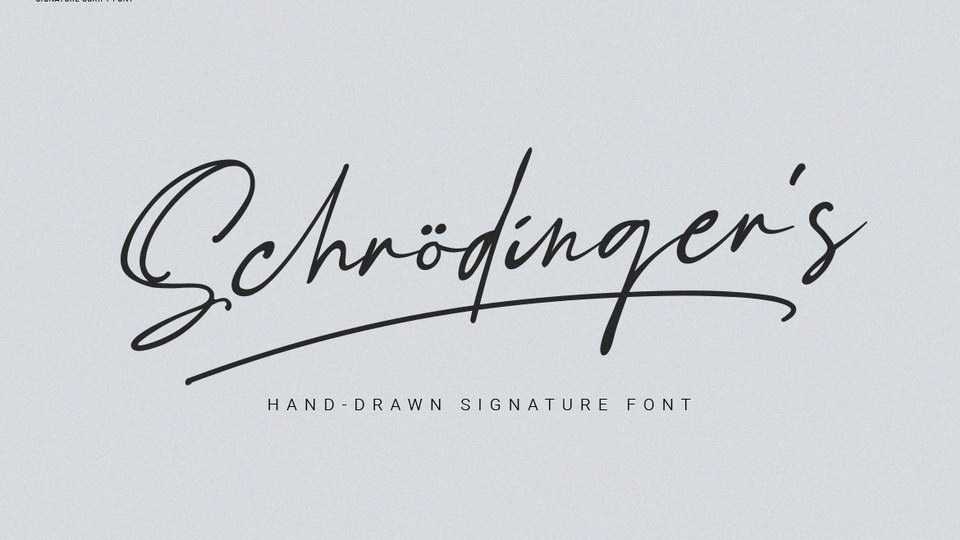
Schrödinger’s Font › Fontesk
Download Schrödinger’s font, a remarkable signature typeface which was made hand-drawn manually using Hitech-C pen. Schrödinger’s is very natural-like and make your design stand out!
Designer: Bluetype